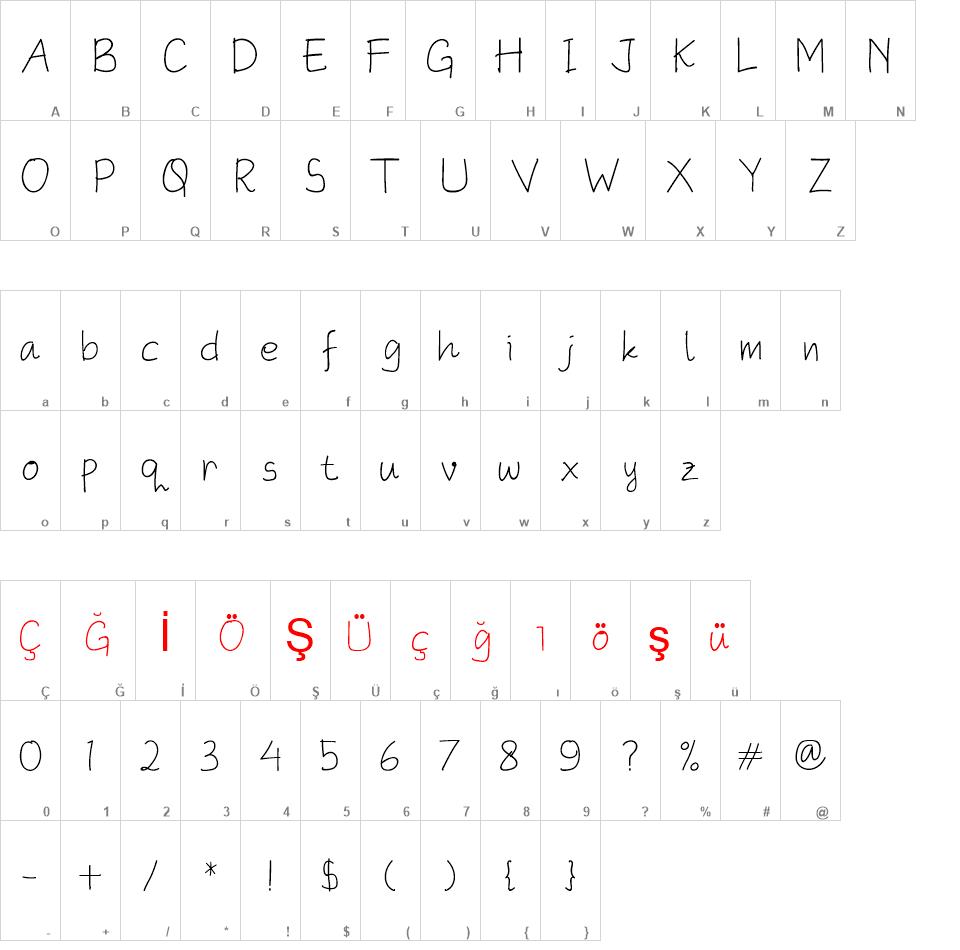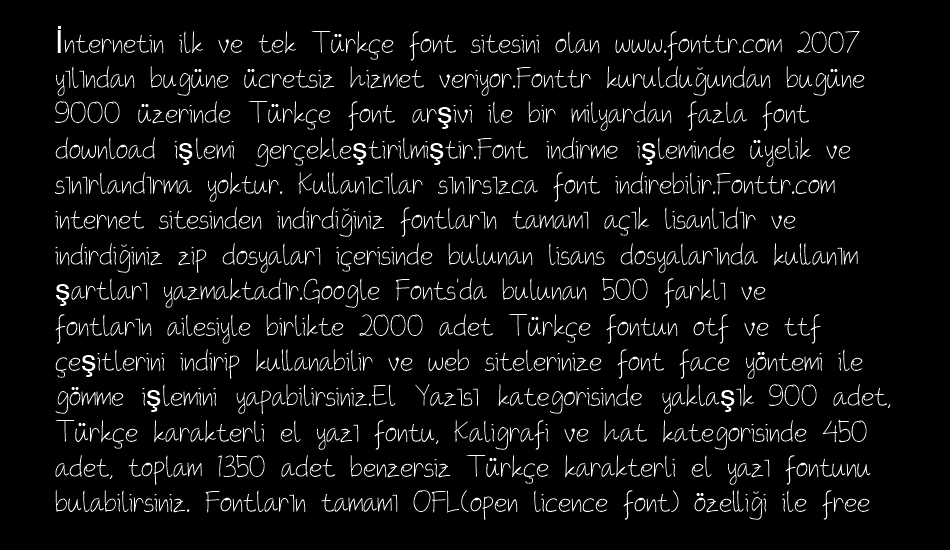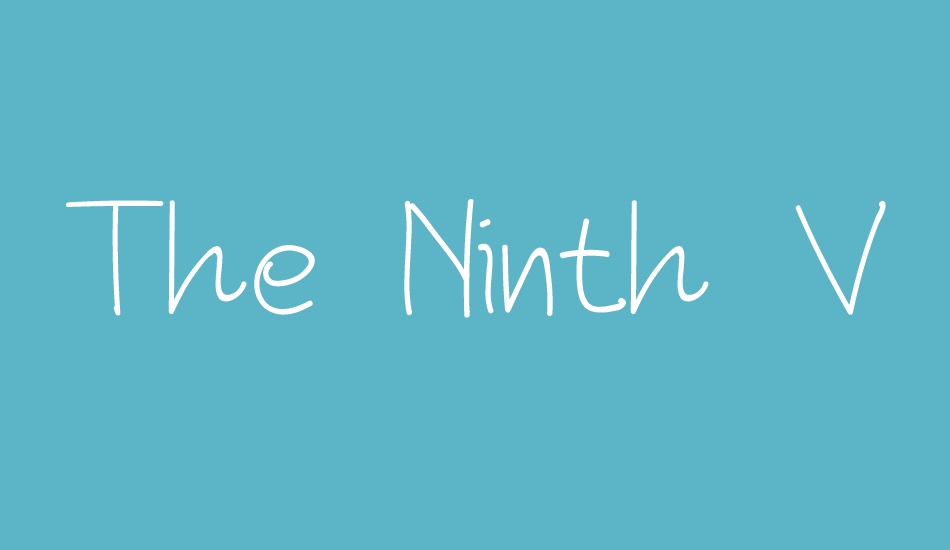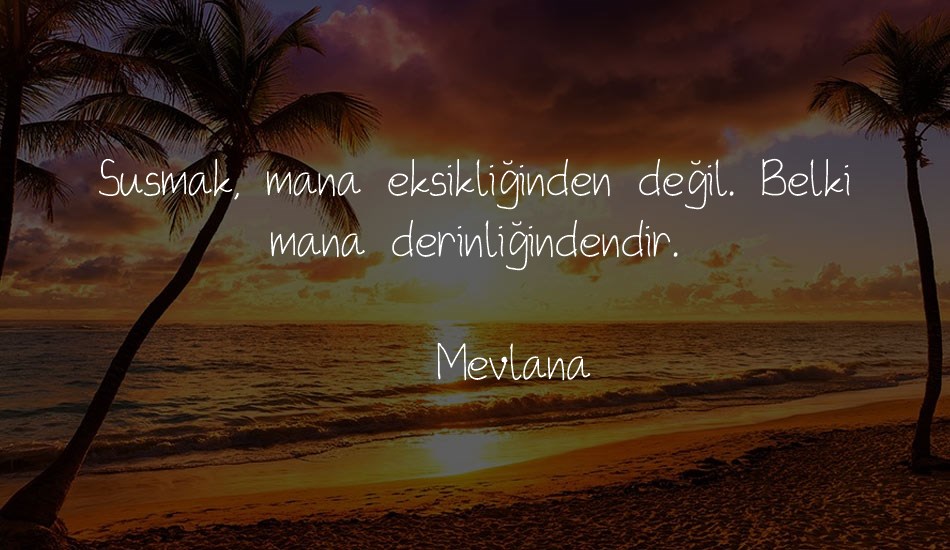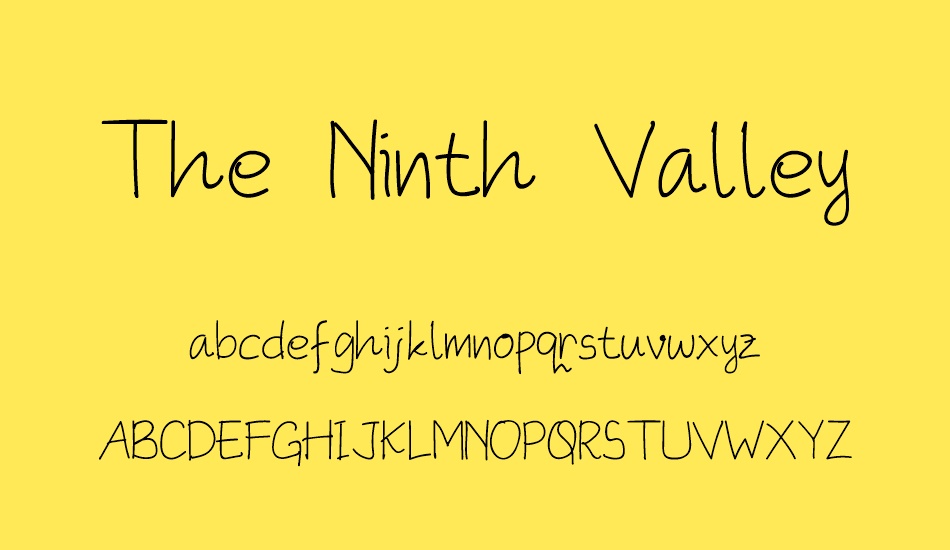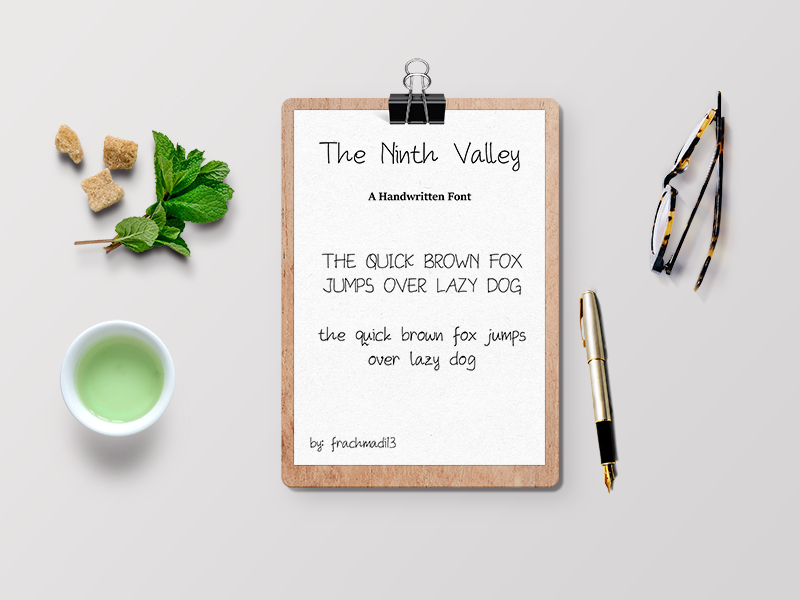
The Ninth Valley font
The Ninth Valley
The Ninth Valley - a new modern & fresh handwritten font. It makes this font looks natural, stylish, and perfect for any awesome projects that need handwriting taste. The Ninth Valley would be perfect for photography, lyric video, watermark, social media posts, advertisements, or any special event that need handwriting feel.